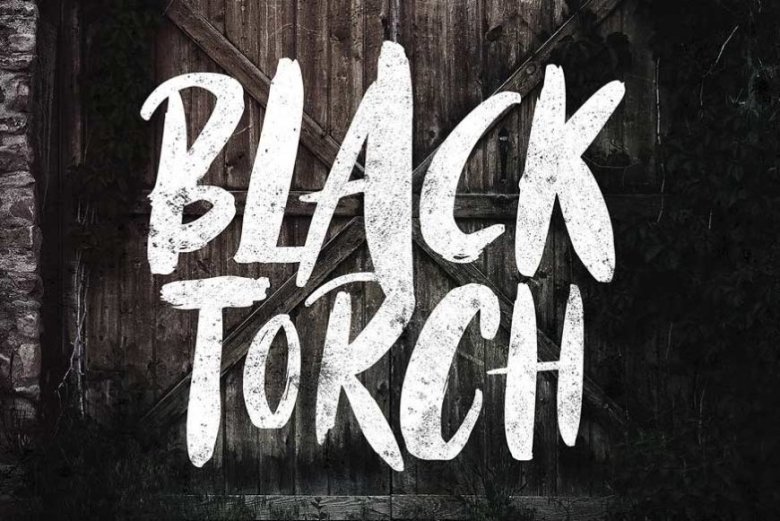
Black Torch Dry Brush Font
Introducing Black Torch – Dry Brush Font! Black Torch is brush font bursting with natural rough dry brush strokes, and the stroke of hand sharp and quickly.